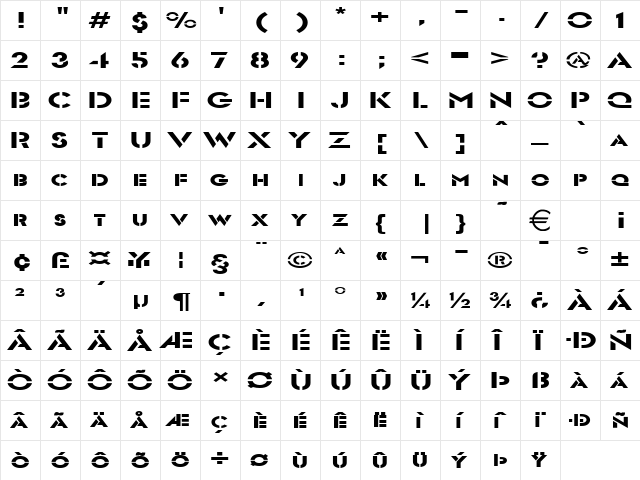
TemplettExtended Normal
Design Context for TemplettExtended Typeface
TemplettExtended takes a measured approach to typography — its balanced proportions and neutral character make it a reliable workhorse for both digital and print work.